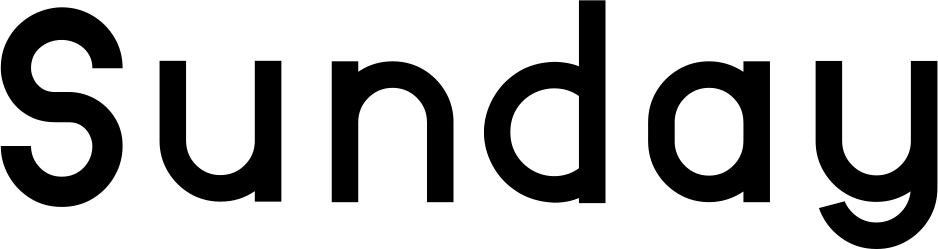
Sunday Font
Sunday is a simple, clean, bold sans-serif font with a friendly, informal air. Its operation has countless areas, but here are some examples, including branding, logotypes, stationery, greeting card design, product packa…
Sunday is a simple, clean, bold sans-serif font with a friendly, informal air. Its operation has countless areas, but here are some examples, including branding, logotypes, stationery, greeting card design, product packaging, and so many more. Btw, you can get more of this category in our library. Find it on RB!